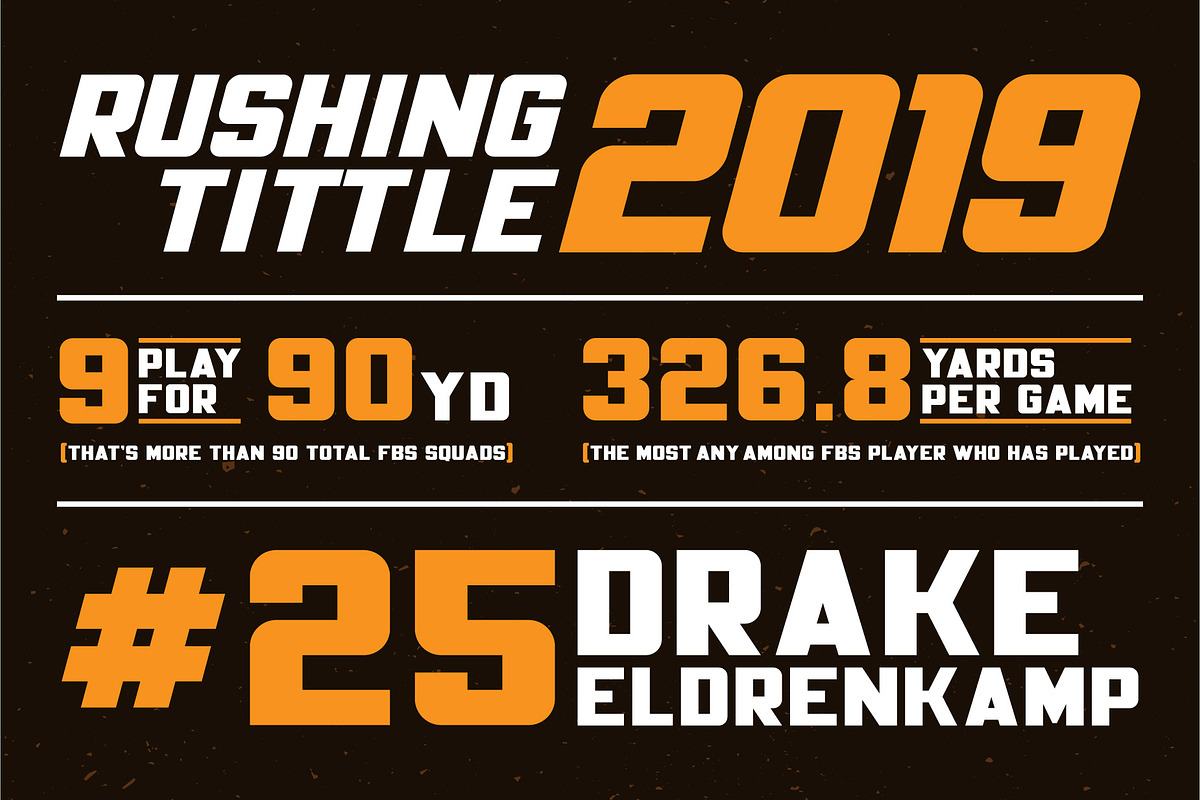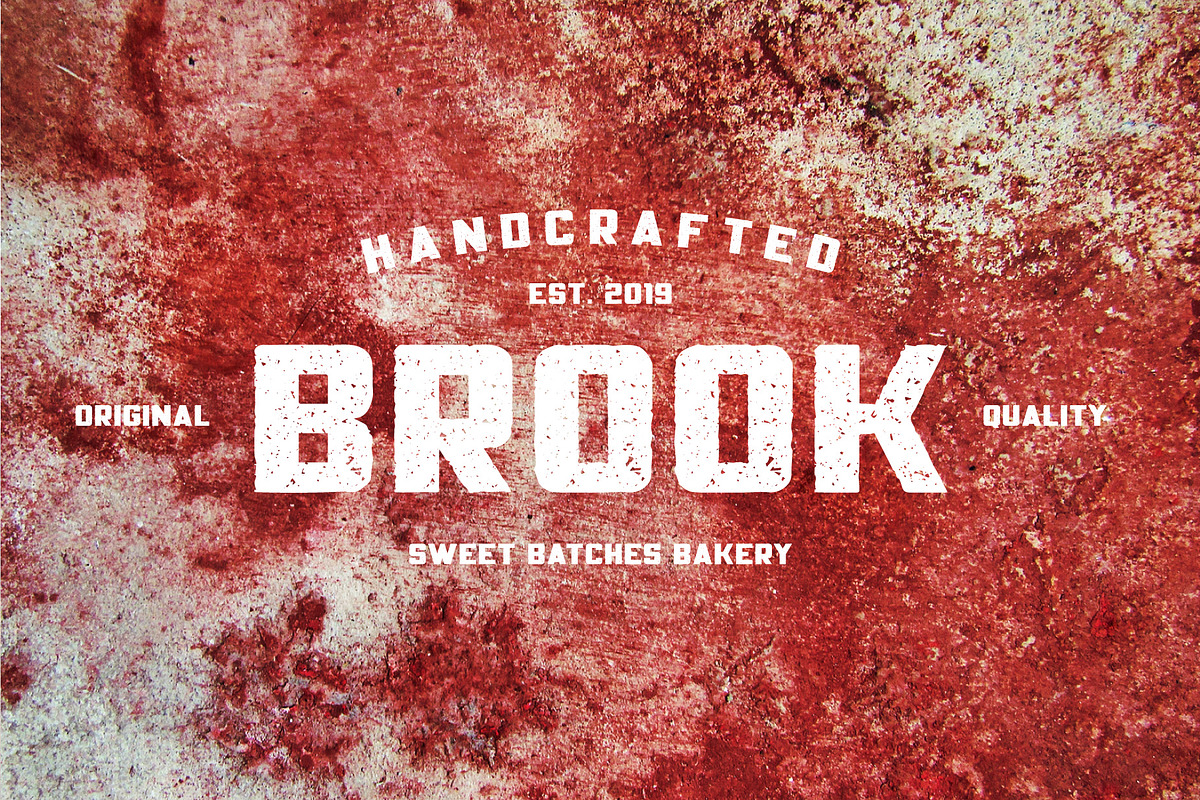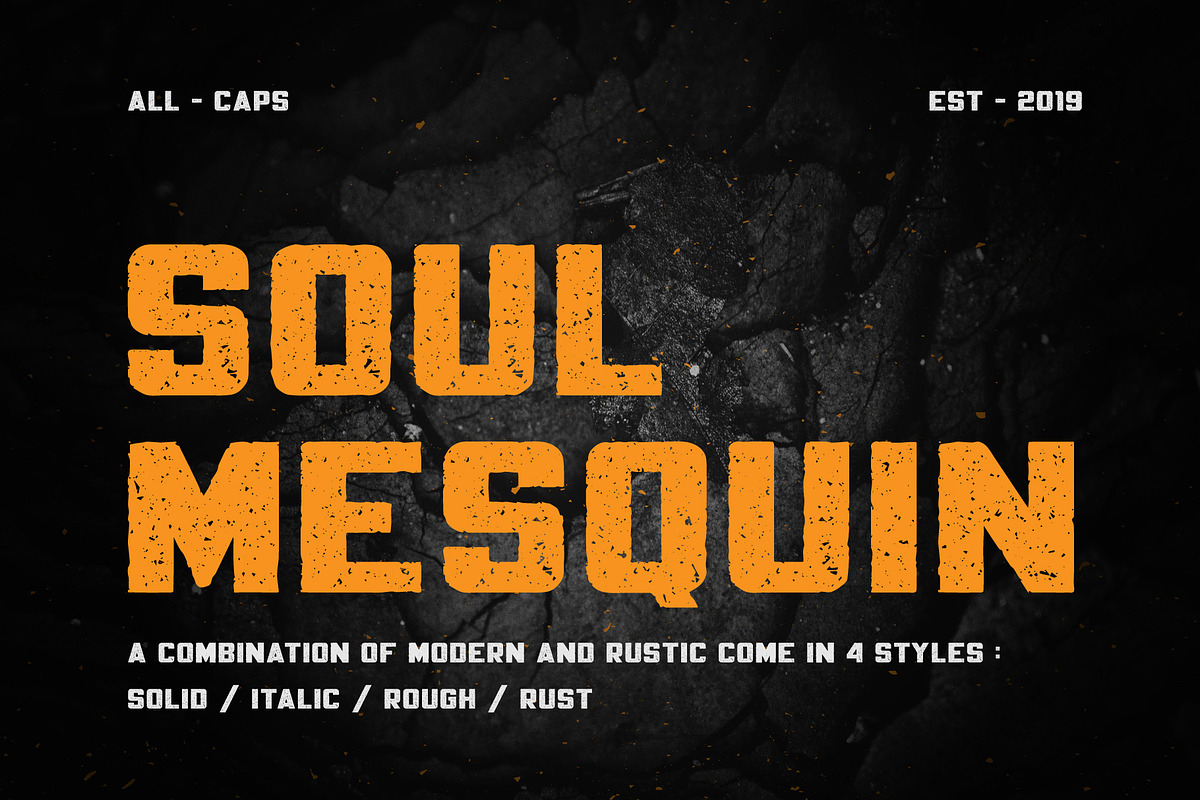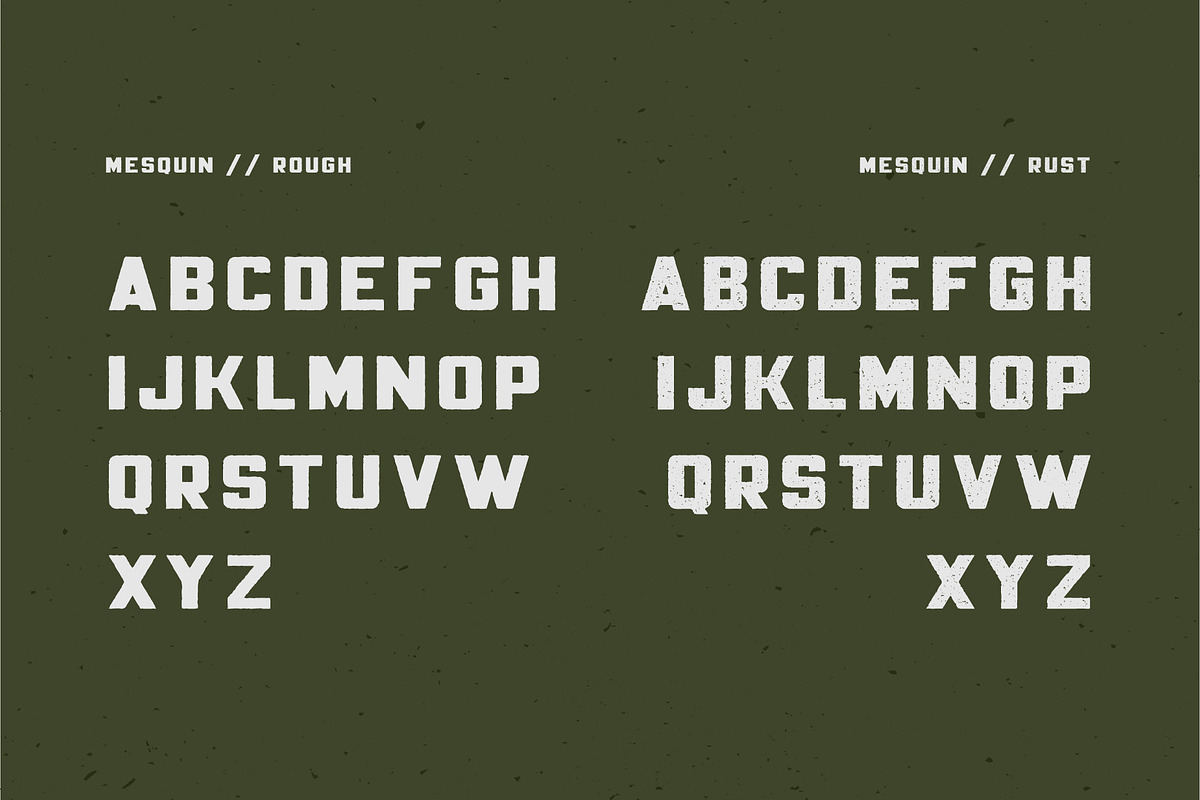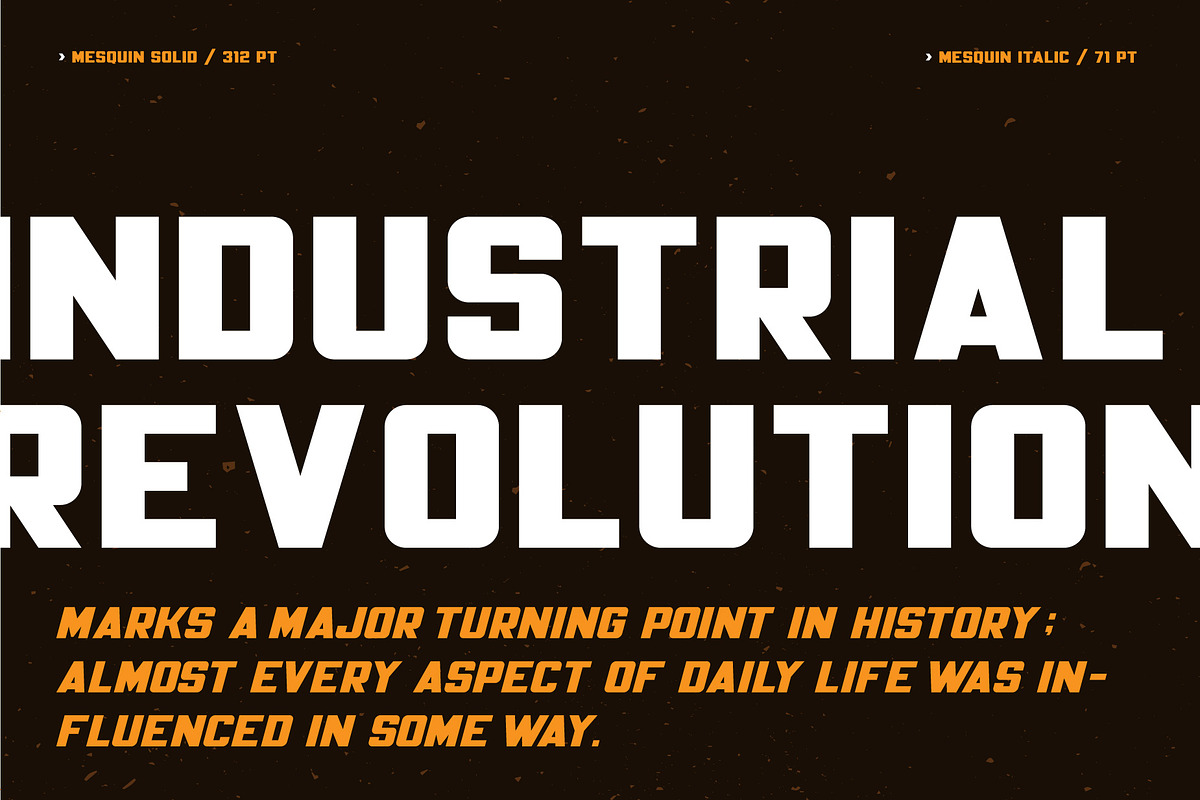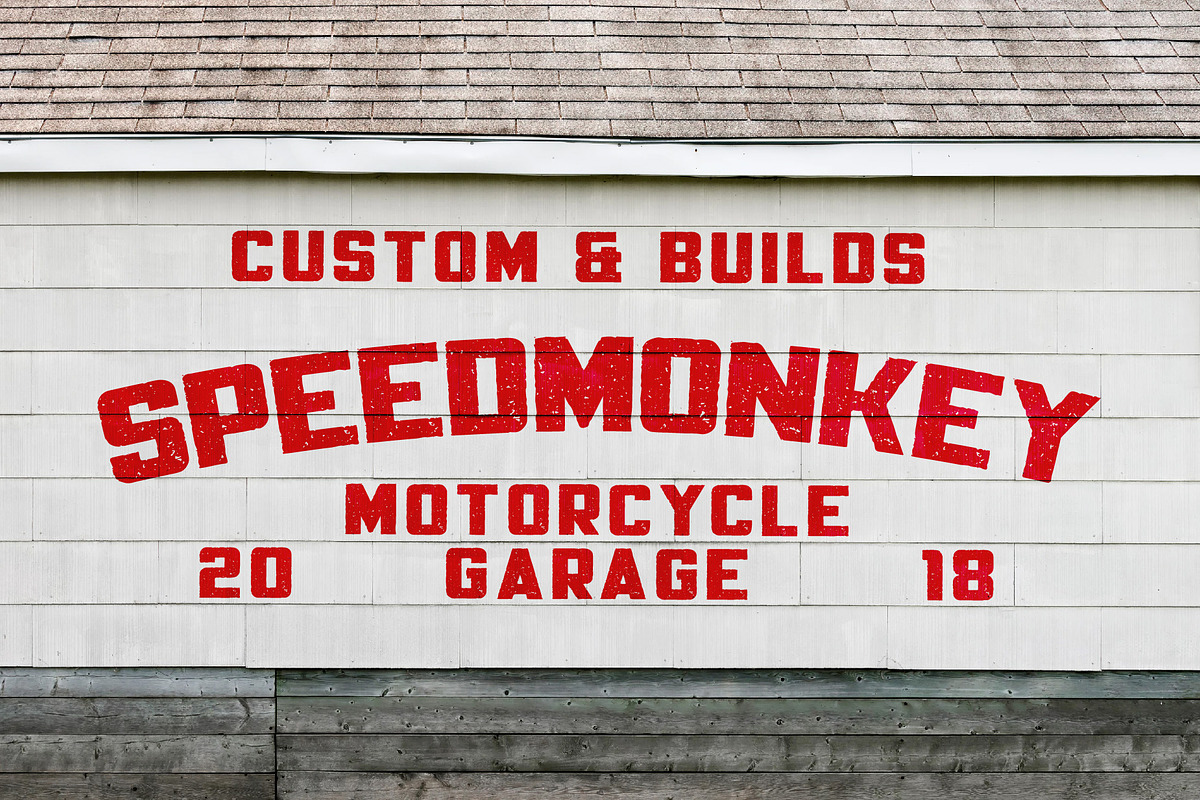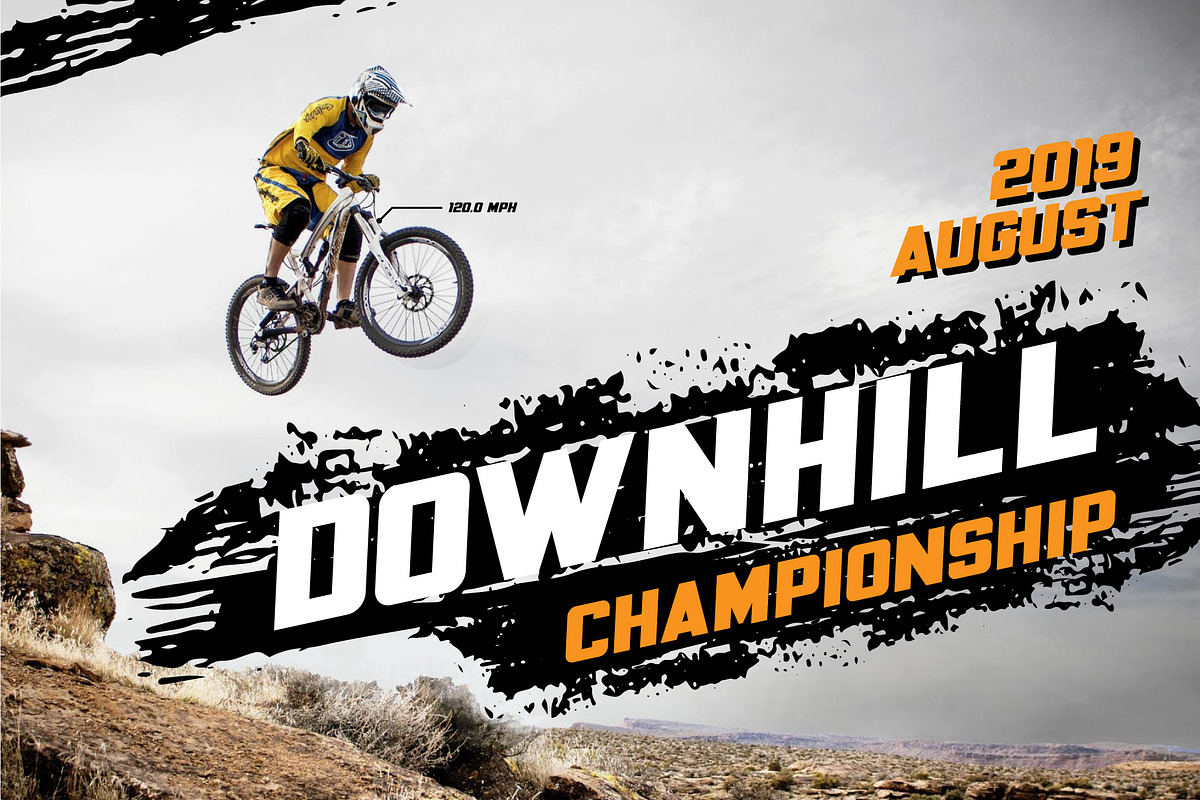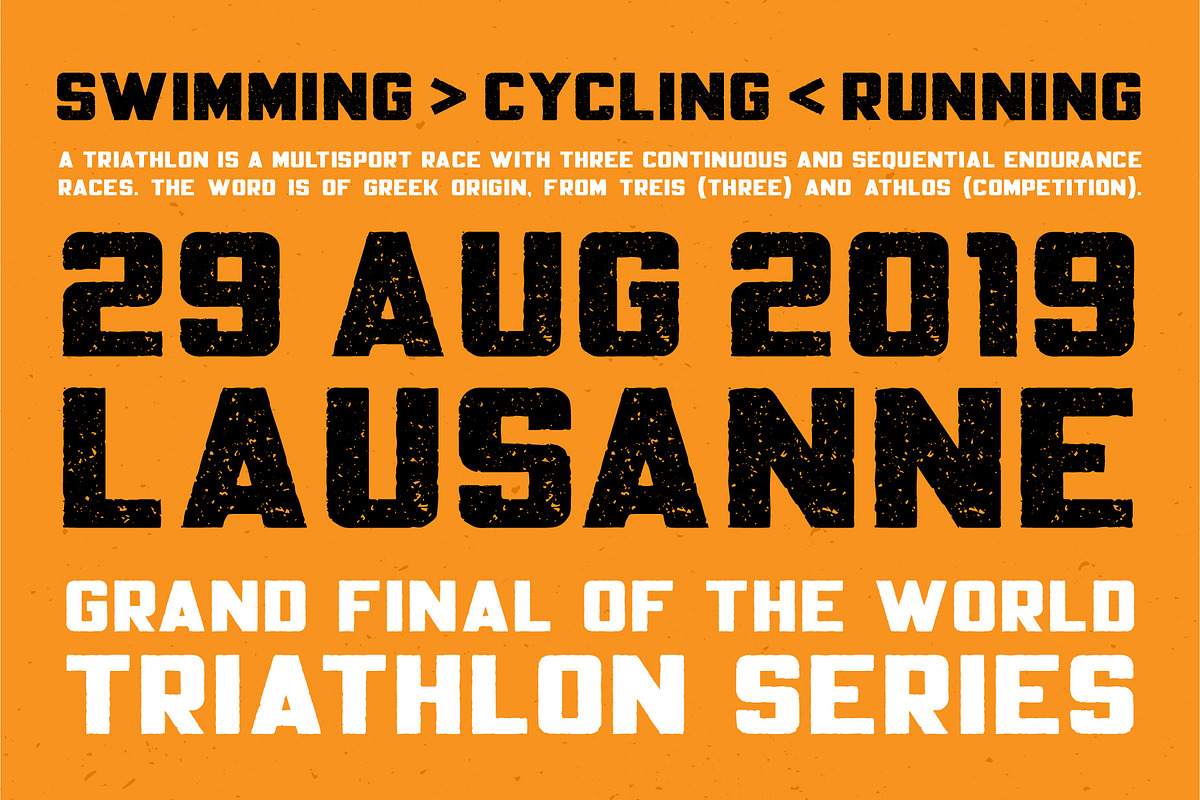
Mesquin Font
Mesquin is an all uppercase sans serif font with geometric shapes of characters. It is inspired by lettering from the industrial and good old past, but it still has a strong modern appearance. Its allows versatile design options and works perfectly for headlines, logos, posters, packaging, T-shirts, postcards and much more.